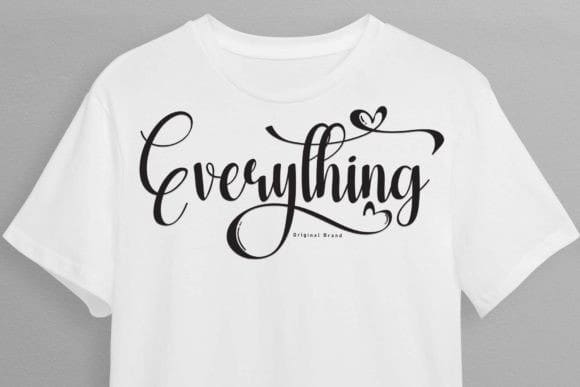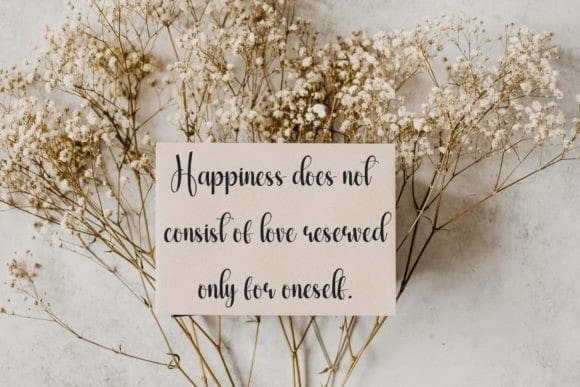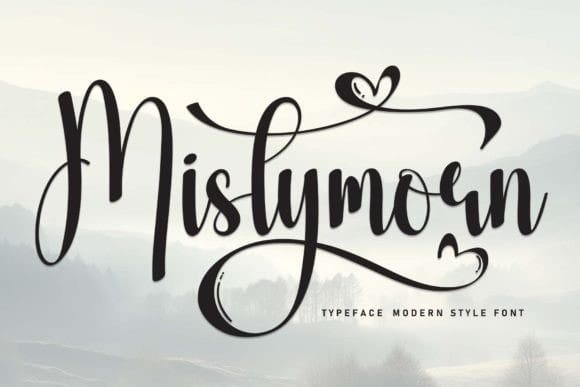
Mistymorn Font
Mistymorn Font is a sweet and friendly handwritten font. Its natural and unique style makes it incredibly fitting to a large pool of designs. The only limit is your imagination!